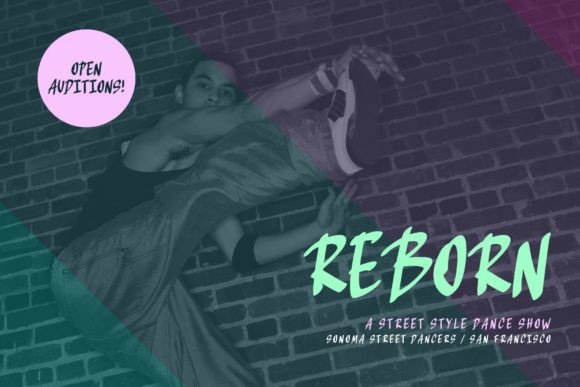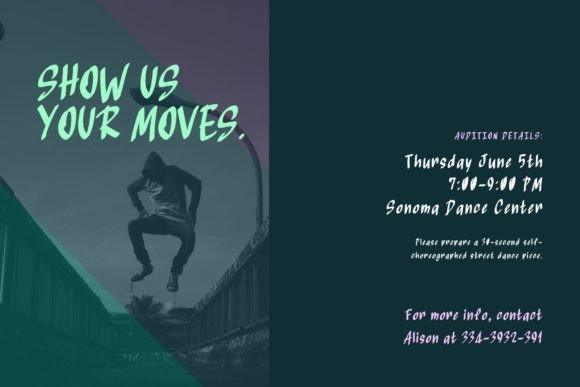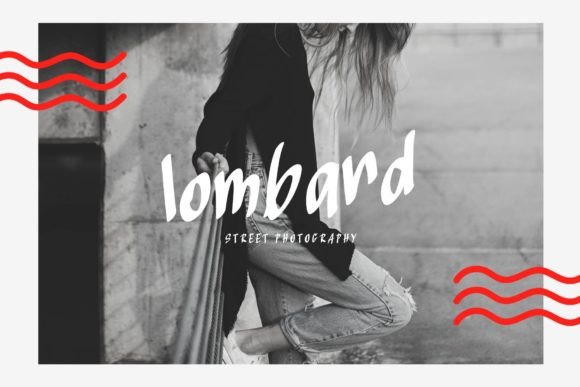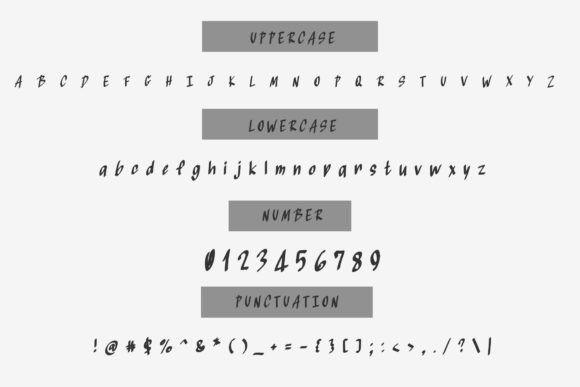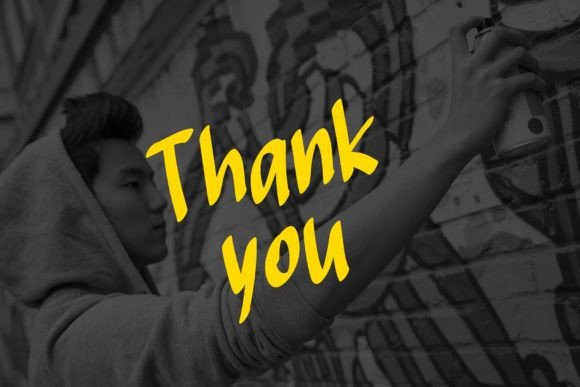
Introducing Graham Font: The Perfect Handwritten Display Font for Your Creative Projects
Are you looking for a font that can add a touch of playfulness and authenticity to your designs? Look no further than Graham Font, a cute handwritten display font that’s perfect for a wide range of creative projects. In this article, we’ll take a closer look at Graham Font, its features, and how you can use it to elevate your designs.
What is Graham Font?
Graham Font is a beautiful, handwritten display font that’s designed to bring a sense of fun and personality to your designs. Its playful and authentic style makes it perfect for a variety of projects, from blog posts and logos to branding, ads, invitations, greeting cards, planners, photo albums, decorations, and more.
Key Features of Graham Font
So, what makes Graham Font so special? Here are some of its key features:
• Playful and Authentic Style: Graham Font has a unique, handwritten style that’s both playful and authentic. It’s perfect for designs that need a personal touch.
• Versatile: Graham Font is a versatile font that can be used for a wide range of projects, from digital designs to print materials.
• Easy to Read: Despite its playful style, Graham Font is easy to read, making it perfect for body text and headlines.
• High-Quality: Graham Font is a high-quality font that’s designed to deliver exceptional results in your designs.
Ideas for Using Graham Font
Graham Font is a versatile font that can be used in a wide range of projects. Here are some ideas to get you started:
• Blog Posts: Use Graham Font to add a personal touch to your blog posts and make them more engaging.
• Logos and Branding: Use Graham Font to create a unique and memorable logo or branding identity.
• Ads: Use Graham Font to create eye-catching ads that grab attention and drive results.
• Invitations and Greeting Cards: Use Graham Font to create beautiful and personalized invitations and greeting cards.
• Planners and Photo Albums: Use Graham Font to add a touch of personality to your planners and photo albums.
• Decorations: Use Graham Font to create beautiful and unique decorations for your home or office.
Tips and Tricks for Getting the Most Out of Graham Font
Here are some tips and tricks for getting the most out of Graham Font:
• Experiment with Different Styles: Experiment with different styles and layouts to find the one that works best for your design.
• Use Color: Use color to add depth and interest to your design.
• Keep it Simple: Keep your design simple and clean to ensure that Graham Font is the focus.
• Have Fun: Most importantly, have fun and be creative!
Graham Font is a beautiful, handwritten display font that’s perfect for a wide range of creative projects. Its playful and authentic style makes it a great choice for designers and crafters who want to add a personal touch to their designs. With its versatility, ease of use, and high-quality design, Graham Font is a must-have font for any designer or crafter.